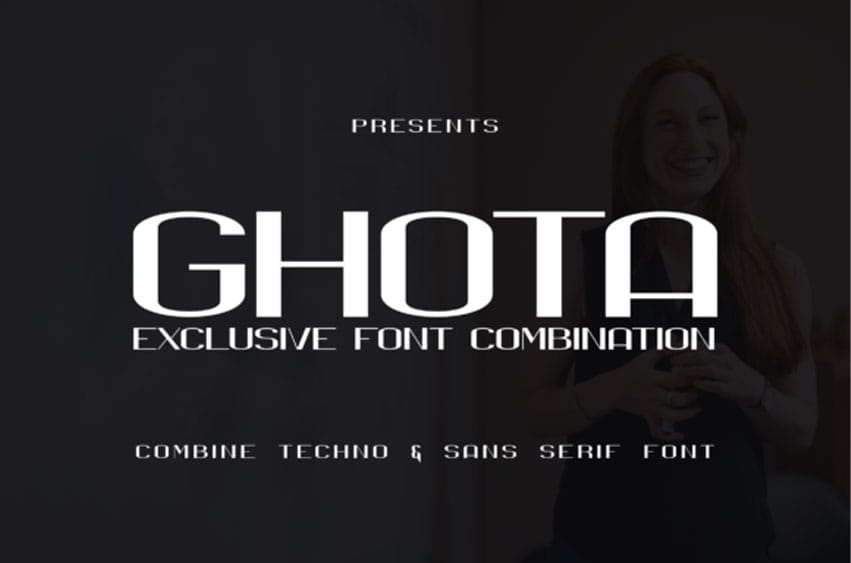
Ghota Font is a futuristic and sleek font duo that blends techno aesthetics with refined sans-serif clarity.
With bold geometric forms and clean curves, this typeface delivers an edgy yet professional look ideal for tech branding, digital posters, UI/UX projects, and game or sci-fi designs. Its modern edge and versatile pairing make it a standout for innovative visual identities.